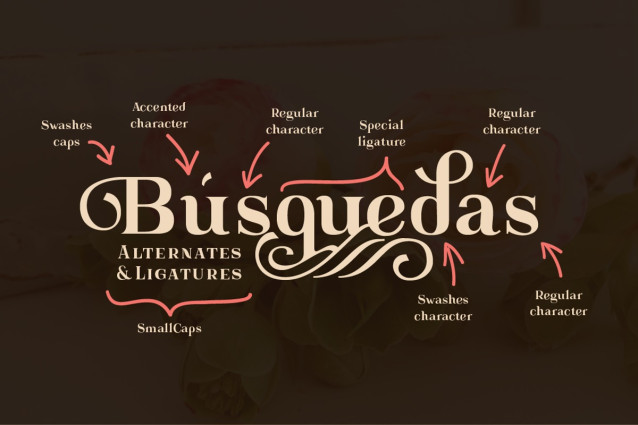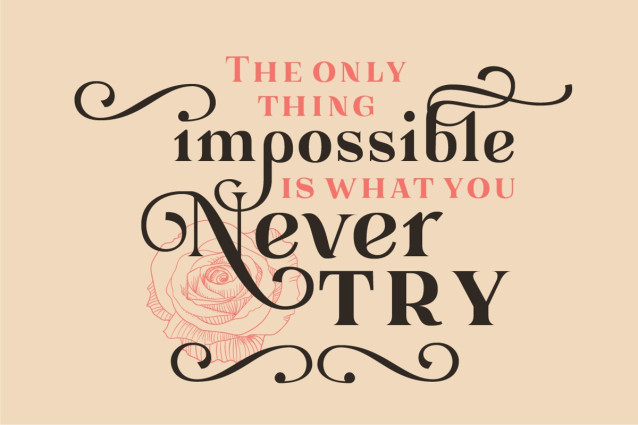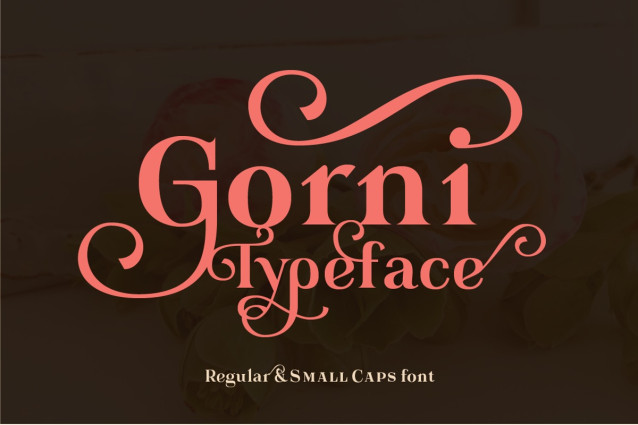
Gorni Font
Gorni Font is a display serif font with a romantic vibe, perfect for maintaining simplicity but with a special flair.Its special characters and ligatures make your text unique and distinguished, including both regular and smallcaps versions, you may mix them and create amazing compositions, ideal for titling, posters, cards, etc.